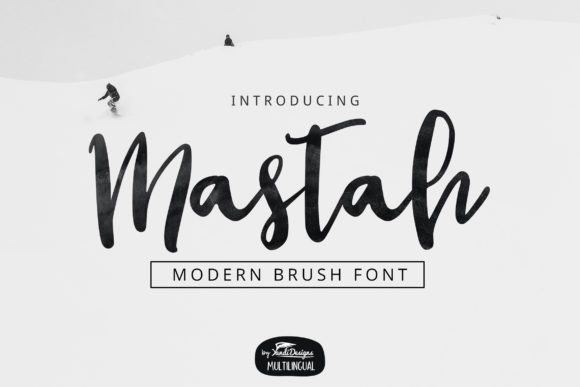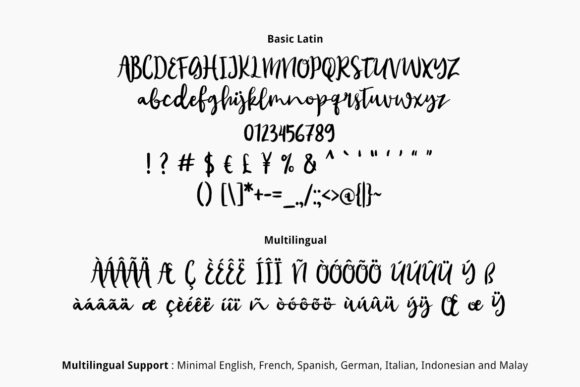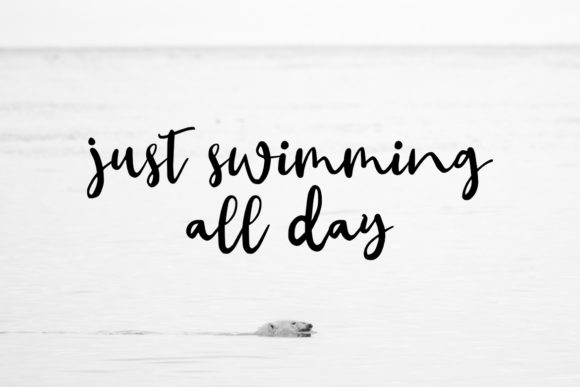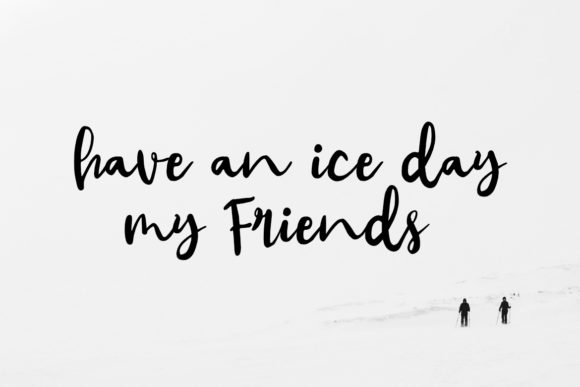
Mastah Font
About Mastah Font
Mastah is a modern and trendy handwritten font that exudes a sense of strength, confidence, and dynamism. With its smooth and sleek letterforms, this font adds a touch of sophistication and style to your designs.
The clean and precise lines of Mastah give it a contemporary and polished look, making it suitable for a wide range of design projects. Whether you’re creating logos, branding materials, advertisements, or social media graphics, Mastah will elevate your designs with its modern and professional appeal.
The trendy and fashionable nature of Mastah makes it a perfect choice for creating eye-catching and memorable designs. The strong and confident letterforms exude a sense of authority and command attention. Whether used in headlines or as body text, Mastah adds a touch of personality and character to your typography.
While Mastah embraces a modern aesthetic, it also carries a hint of nostalgic charm. The handwritten style gives it a human touch and adds warmth to your designs. This combination of modernity and nostalgia creates a unique and captivating visual experience.
The versatility of Mastah allows it to be used in various design contexts. Its legible and well-balanced letterforms ensure readability even at smaller sizes, making it suitable for both headlines and body text. The font also includes a range of alternate characters and ligatures, providing additional design options and allowing you to customize the look and feel of your text.
In summary, Mastah is a modern, smooth, and trendy handwritten font that adds strength, confidence, and nostalgia to your designs. Its clean and sleek letterforms make it versatile for a wide range of design projects, while its unique character adds a touch of personality. Embrace the modern and nostalgic charm of Mastah and let it elevate your designs to new heights.